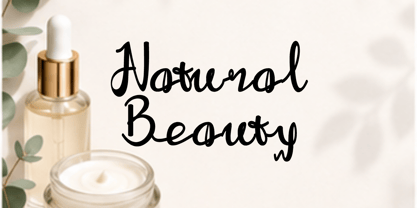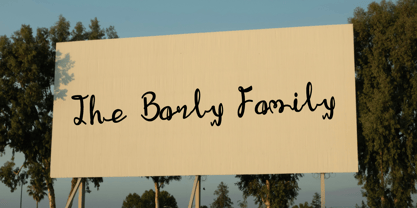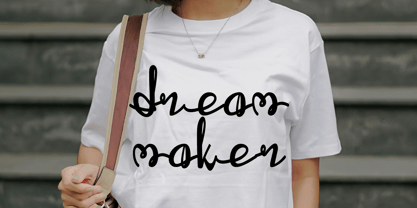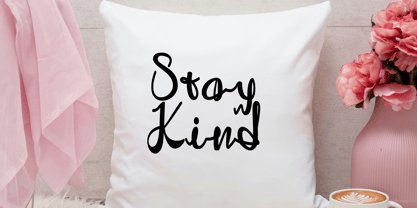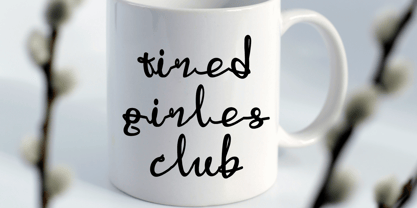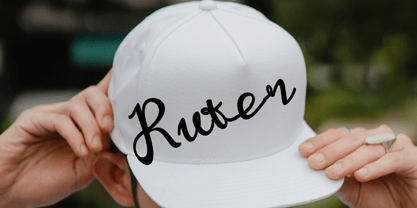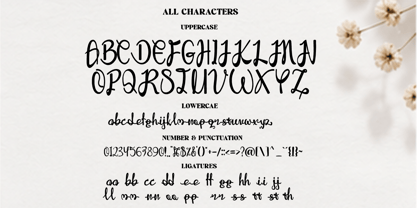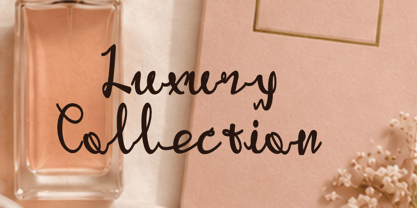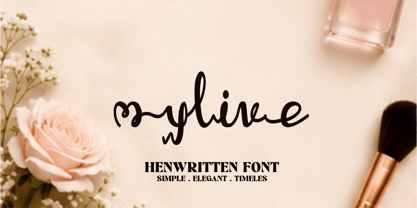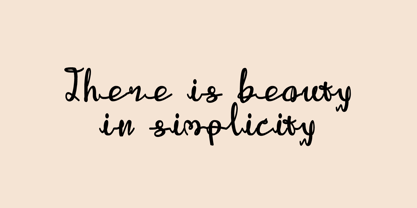
Mylive
Die Schriftfamilie Mylive wurde von Ta Siyo entworfen und von Letternesia studio veröffentlicht. Mylive enthält 1 Stile. Mehr über diese Familie
Mylive is a beautiful handwritten script font with a natural, elegant, and feminine style. Designed with smooth flowing strokes and authentic handwritten details, this font is perfect for adding a personal and stylish touch to any creative project.
Whether you're creating logos, branding, wedding invitations, greeting cards, social media posts, product packaging, quotes, stationery, labels, beauty branding, fashion designs, Cricut projects, Silhouette crafts, stickers, mugs, t-shirts, or printable products, Mylive delivers a charming handwritten look with excellent readability.
Its versatile design makes it suitable for both modern and classic projects, helping your work stand out with elegance and creativity. Mylive is ideal for designers, crafters, small business owners, and content creators looking for a high-quality script font that works beautifully across print and digital media.